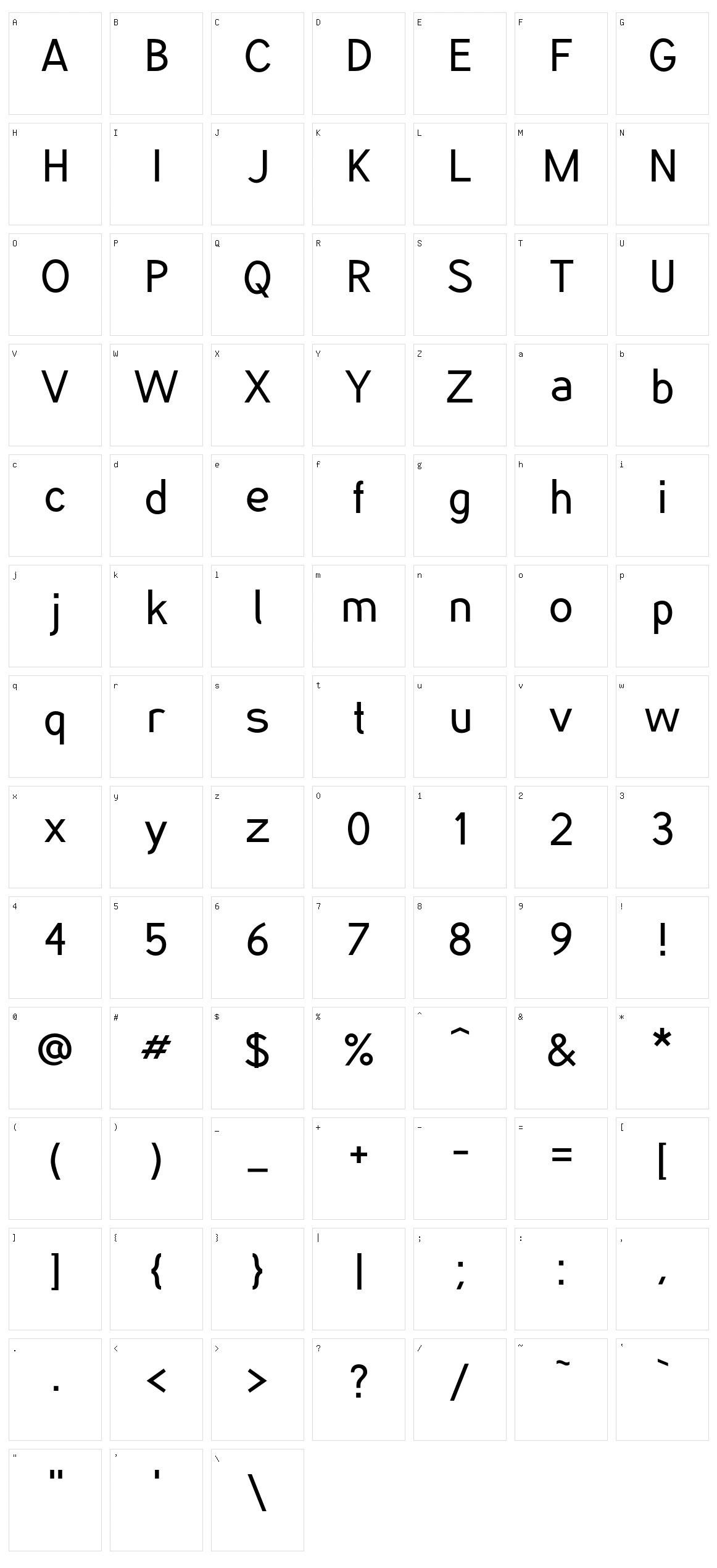
The free font Phat Otto is carefully designed by Lukas Schiltknecht, showcasing a thoughtful balance of creativity and usability and falls under the Sans serif font style. When you download the ZIP file, it contains only 14.63 KB of font files, making it lightweight and quick to download. Please review the license details below to understand permitted usage and distribution rights. If license information is not available, we recommend using this font for personal projects only or contacting the author directly for commercial usage permissions.